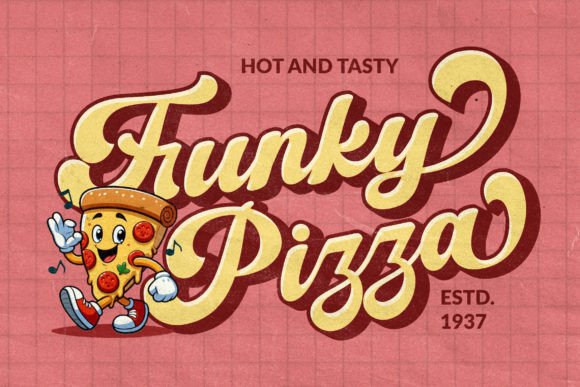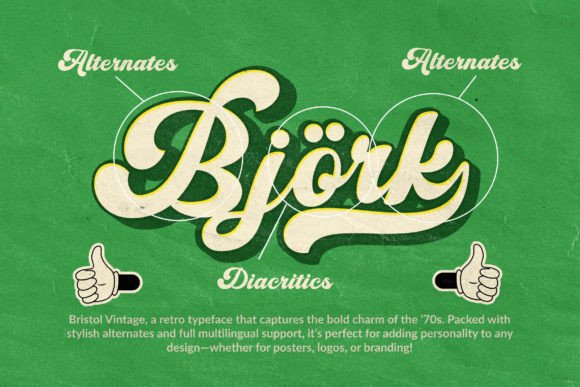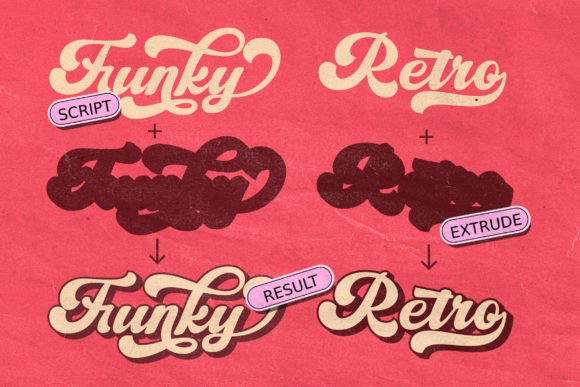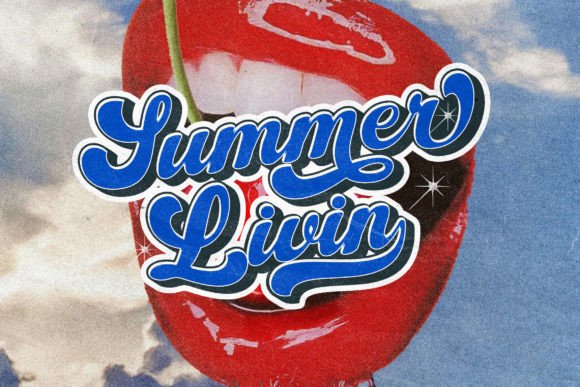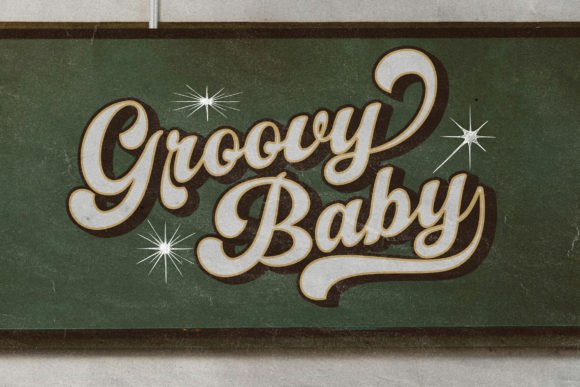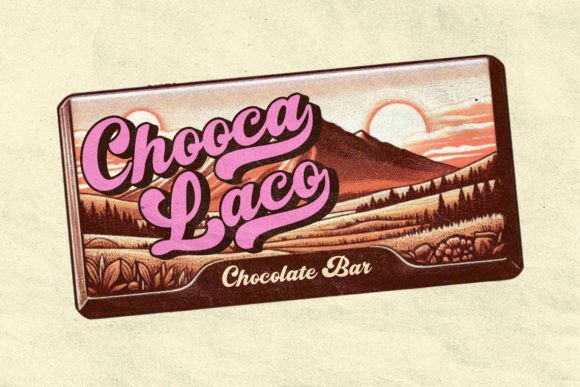
Unleash the Charm of Vintage Typography
Have you ever stumbled upon an old, worn-out book or a vintage postcard that sparks your creativity? The unique feel and character of those ancient pieces often transport us to a bygone era, evoking a sense of nostalgia and charm. As designers, we often strive to capture that same essence in our work.
Enter the Bristol Vintage Font, a delightful retro script font that embodies the spirit of yesteryear. With its cute, unique, and cheerful vibe, this font is perfect for designers seeking to add a touch of vintage flair to their projects. Whether you’re crafting logos, wedding invitations, or branding materials, the Bristol Vintage Font offers a wealth of creative possibilities.
Its versatility and range of glyphs make it an invaluable asset for designers, allowing them to add depth and dimension to their work. With the Bristol Vintage Font, you can create truly unique and captivating designs that stand out from the crowd.
Bristol Vintage Font Key Features
- Unique Characteristics: This font features a distressed, vintage aesthetic with subtle texture and imperfections, evoking a sense of nostalgia and history.
Bristol Vintage Font Review
Overall, I’m quite fond of the Bristol Vintage Font. It’s a charming, distressed font that’s perfect for adding a touch of vintage charm to your designs. ✨ The font’s imperfections and irregularities give it a unique, handmade feel that’s sure to stand out.
- The font’s distressed look is well-executed, with subtle imperfections that add to its charm.
- It’s highly versatile, working well for a range of designs from romantic wedding invitations to rustic packaging labels.
- The font’s irregularities make it feel more human, which can be a nice change of pace from the usual sans-serif fonts.
- ⚠️ The font may not be suitable for designs where precision and clarity are crucial, such as in technical documents or financial reports.
- ⚠️ Some characters may be difficult to read, particularly in smaller font sizes.
In terms of overall impression, I’d say the Bristol Vintage Font is a great choice for designers looking to add a touch of vintage charm to their work. While it may have some limitations, its unique look and versatility make it a valuable addition to any designer’s toolkit.
The Bristol Vintage font is perfect for:
– Creating a vintage or distressed look for marketing materials, such as flyers and brochures.
– Adding a touch of elegance to wedding invitations and other special occasion materials.
– Creating a unique and eye-catching logo or branding material.